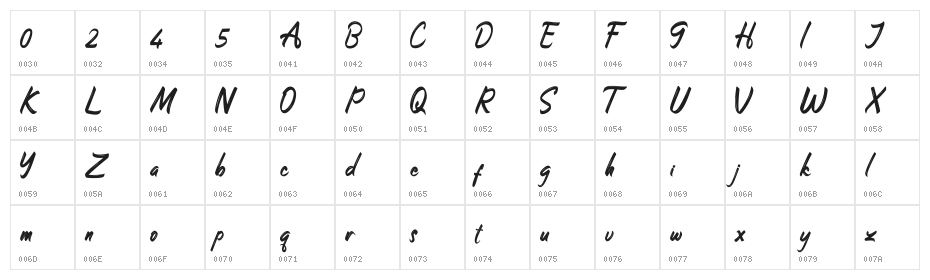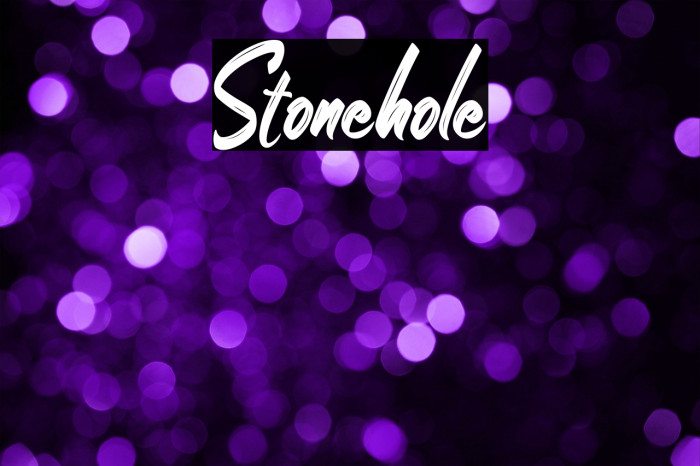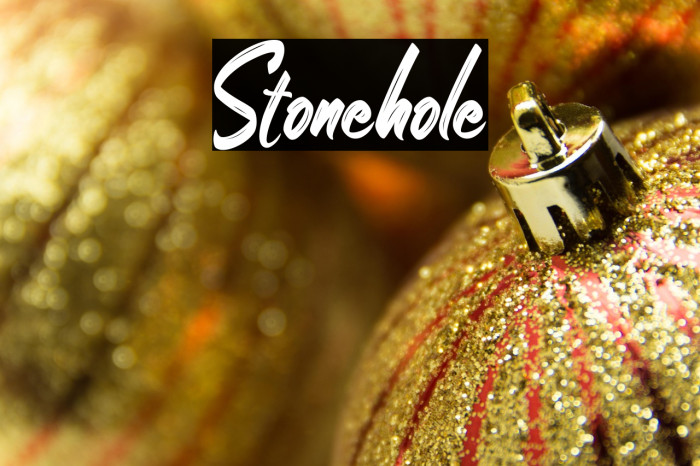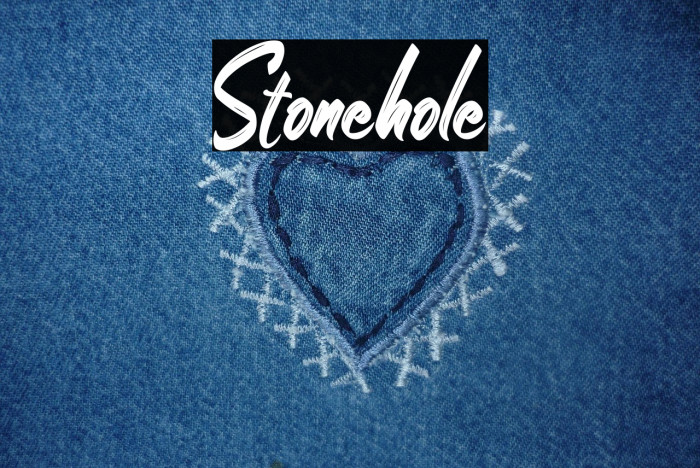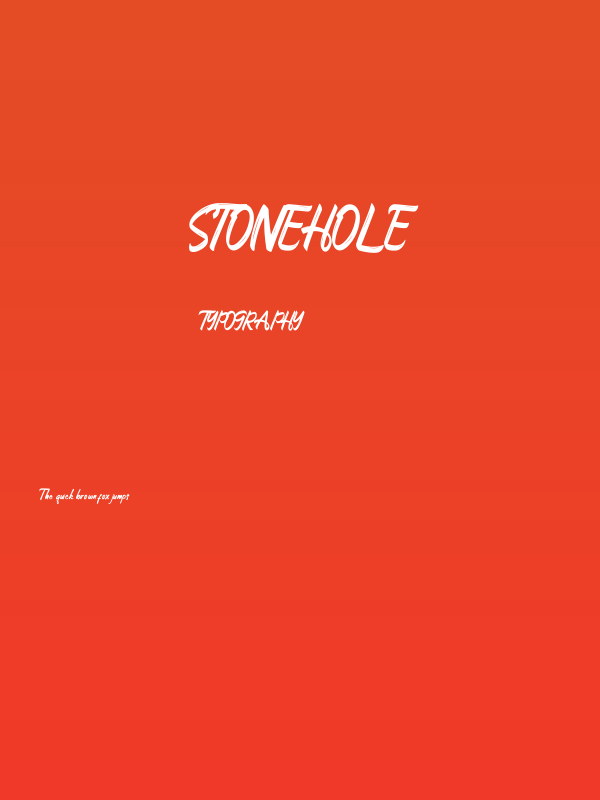
Stonehole Font
Stonehole Description
This font features a bold and dynamic script style, characterized by its fluid and connected letterforms. The strokes are thick and expressive, giving it a lively and energetic appearance. The uppercase letters are particularly striking, with exaggerated curves and a sense of movement. The lowercase letters maintain a consistent flow, complementing the uppercase with a slightly more subdued style. Numbers are bold and clear, fitting seamlessly with the overall aesthetic. This font's unique style makes it stand out, offering a modern twist on traditional script fonts.
| Use Case | Logos, Headlines, Posters |
| Proposed Projects | Ideal for branding projects, logo design, posters, and invitations where a bold, artistic touch is desired. |